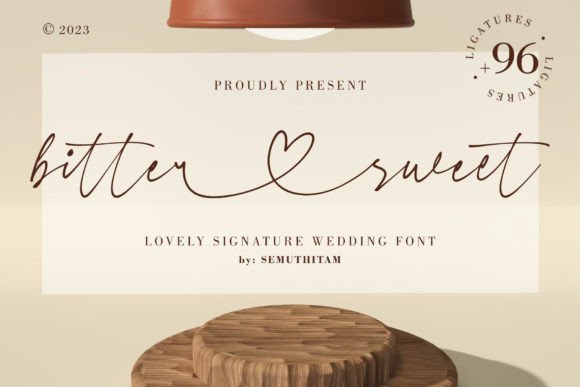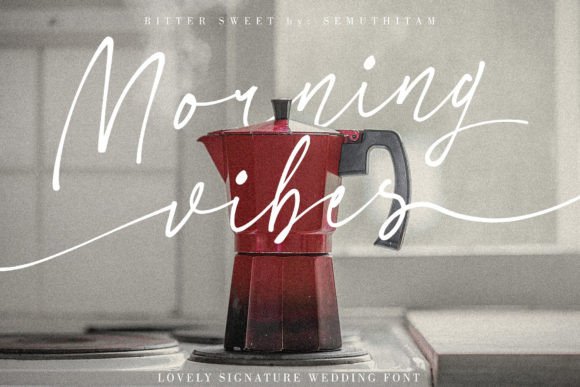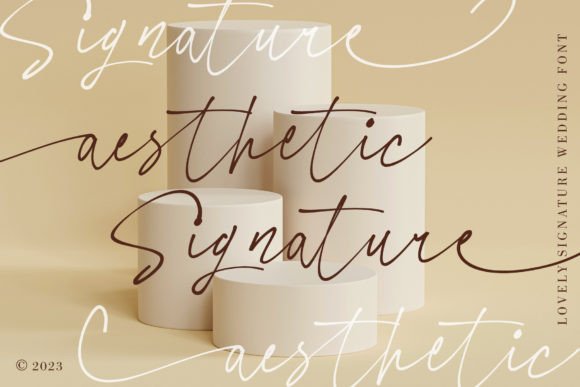
Bitter Sweet Font
You deserve something special at the moment you want, just like Bitter Sweet – Signature Font. We make it with love and meticulousness. Bitter Sweet is a lovely signature wedding font, Very suitable for branding needs, wedding invitations, business cards, and other print needs.